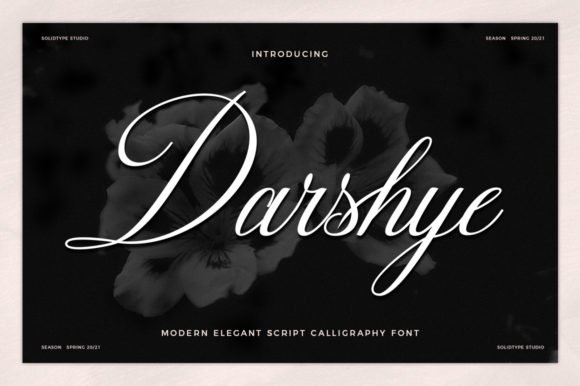
The Perfect Touch of Elegance: Unlocking the Beauty of Darshye Font
Have you ever found yourself rummaging through your collection of stationery, searching for the perfect font to match the sentiment of a heartfelt message or a special occasion? I know I have! It’s those moments when we’re in the midst of creating something beautiful that we wish we had the perfect tool at our fingertips. For designers and creatives, the quest for the perfect font is an ongoing one.
Enter the Darshye Font, a stunning and elegant script font that exudes refinement and sophistication. With its flowing lines and gorgeous glyphs, this font is the perfect addition to any design project that requires a handwritten touch. Whether it’s a wedding invitation, a thank you card, or a business logo, the Darshye Font is sure to make a lasting impression.
Darshye Font Key Features
• Unique Characteristics: Darshye Font features a unique blend of modern and traditional design elements, making it an ideal choice for creative projects.
Darshye Font Review
I recently had the chance to work with the Darshye Font, and I’m excited to share my honest thoughts on it.
Here’s what I liked about it: ✨
• Unique style: The Darshye Font has a distinctive, elegant feel that sets it apart from more common fonts.
• Good legibility: I found the font to be clear and easy to read, even at smaller sizes.
• Creative possibilities: The Darshye Font is versatile and can be used in a variety of contexts, from titles to body text.
• Limited character set: I noticed that the font’s character set is not as comprehensive as some other fonts I’ve worked with.
• May not be suitable for all audiences: The Darshye Font’s unique style may not appeal to everyone, and it may not be the best choice for projects that require a more conservative aesthetic.
• Not ideal for small text: While the font is legible, it may not be the best choice for very small text sizes, where it can start to look a bit fuzzy.
Overall, I think the Darshye Font is a solid choice for designers who want to add some visual interest to their projects. With its unique style and good legibility, it’s a great option for titles, headings, and other display text. However, it may not be the best choice for every project, and designers should be aware of its limitations before using it.
Tips for Getting the Most Out of Darshye Font
Use Darshye Font for headings and titles to create a bold and eye-catching effect.
Combine Darshye Font with other fonts to create a unique and interesting typography.
Darshye Font is ideal for use in:
Headings and titles
Brand logos and identity
Social media posts and graphics
Marketing materials and advertising
Alternatives to Darshye Font for Designers
Open Sans is a modern sans-serif font designed by Steve Matteson. It’s suitable for a wide range of applications, from body text to headlines. Open Sans is highly legible and works well in digital interfaces.
Compared to Darshye Font, Open Sans is more versatile and widely used in various design projects. While Darshye Font has a unique aesthetic, Open Sans is a more neutral and accessible choice.
Montserrat is a sans-serif font inspired by urban typography. It’s designed for use in digital interfaces, particularly in mobile apps and websites. Montserrat is highly legible and features a geometric, modern aesthetic.
Compared to Darshye Font, Montserrat is more geometric and has a stronger emphasis on urban typography. While Darshye Font has a more fluid, organic feel, Montserrat is more rigid and modern.